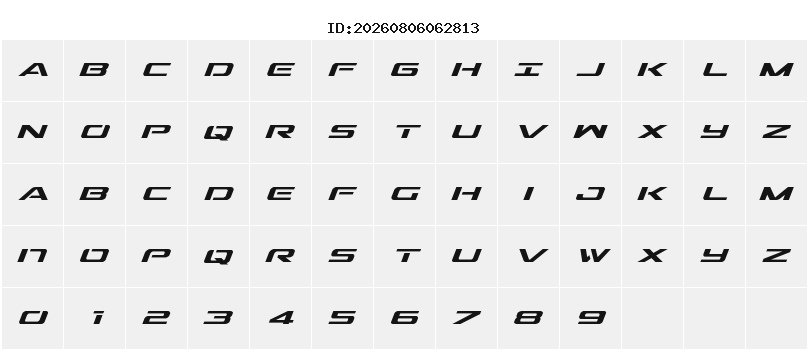
Outrider Semi-Condensed Italic Preview
• Font Name: Outrider Semi-Condensed Italic
• Font Style: Semi-Condensed Italic
• Full Font Name: Outrider Semi-Condensed Italic
About Outrider Semi-Condensed Italic.ttf
Outrider Semi-Condensed Italic.ttf is a modern, elegant sans-serif font designed for ultimate readability and visual harmony. Perfect for branding, headlines, web design, and print materials.